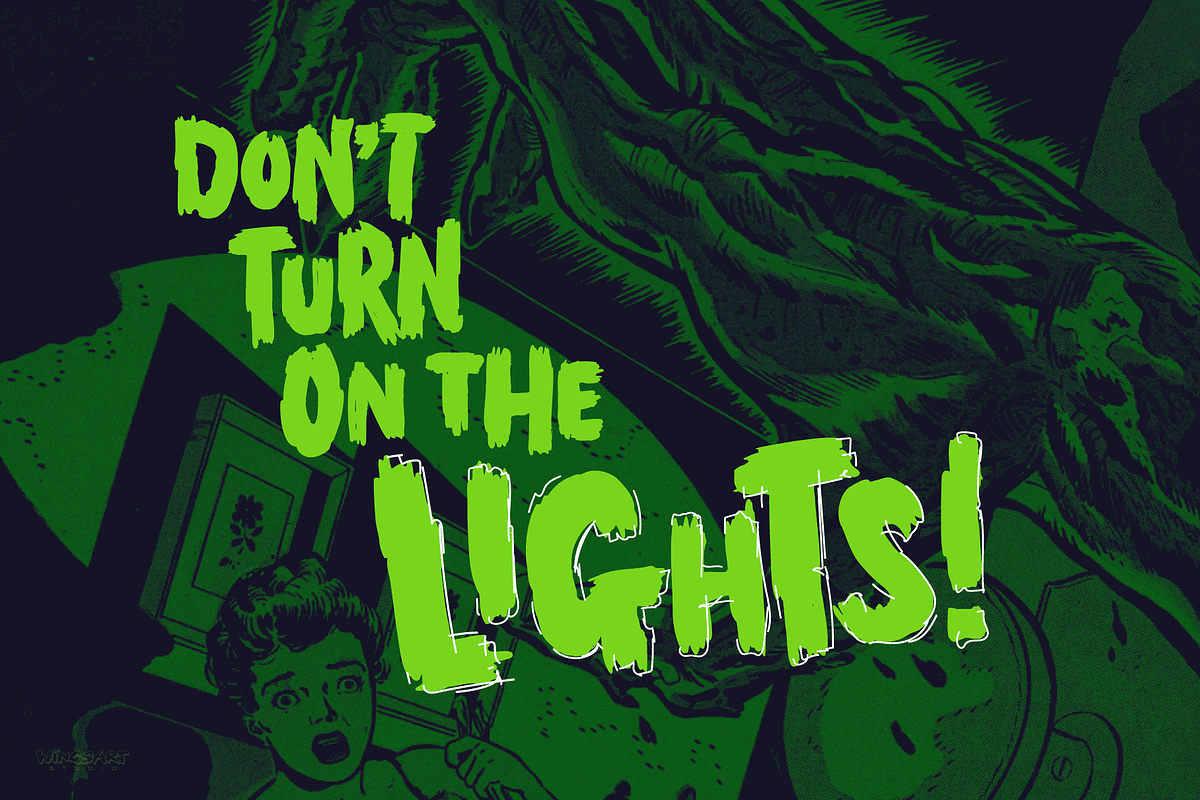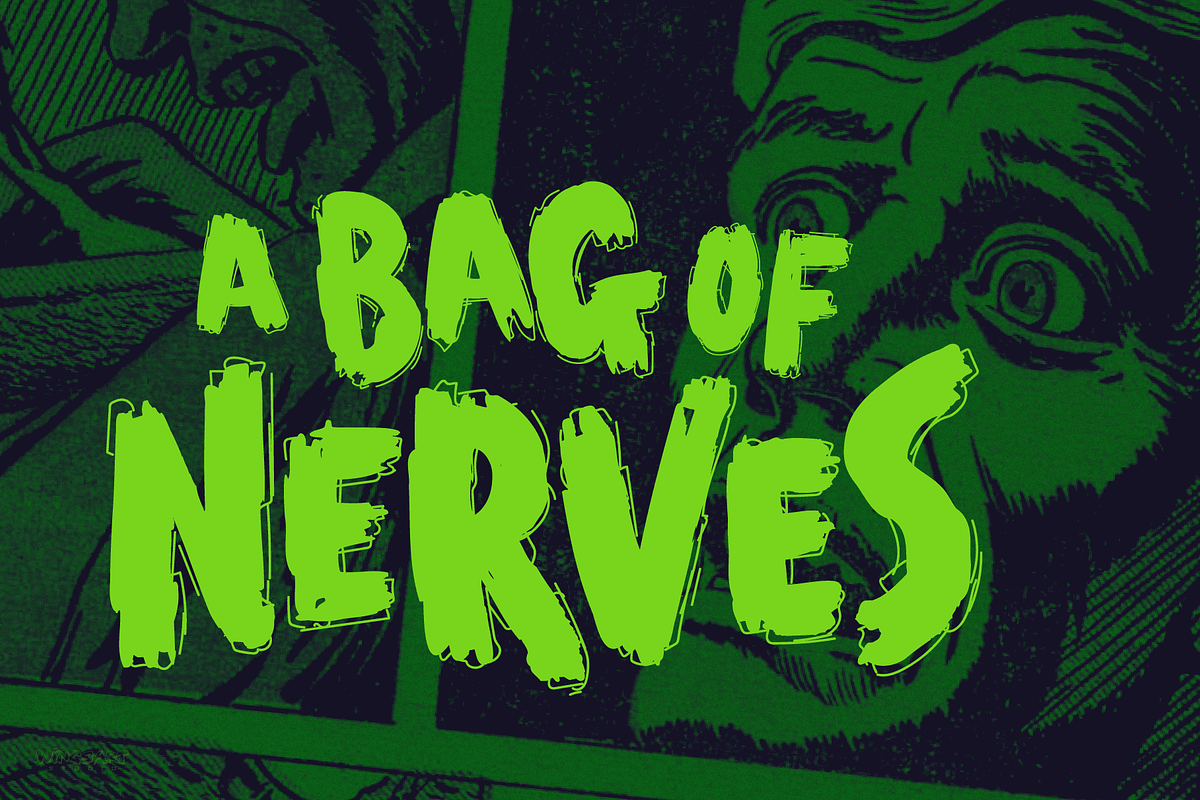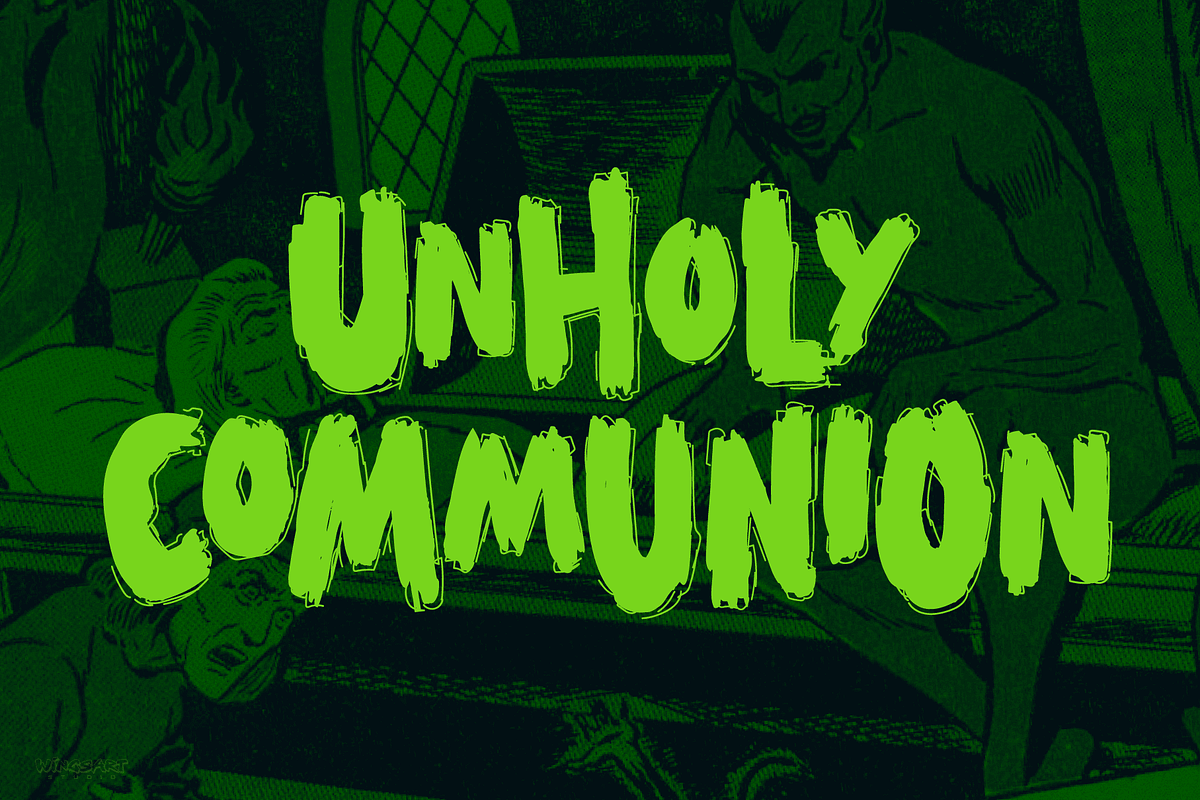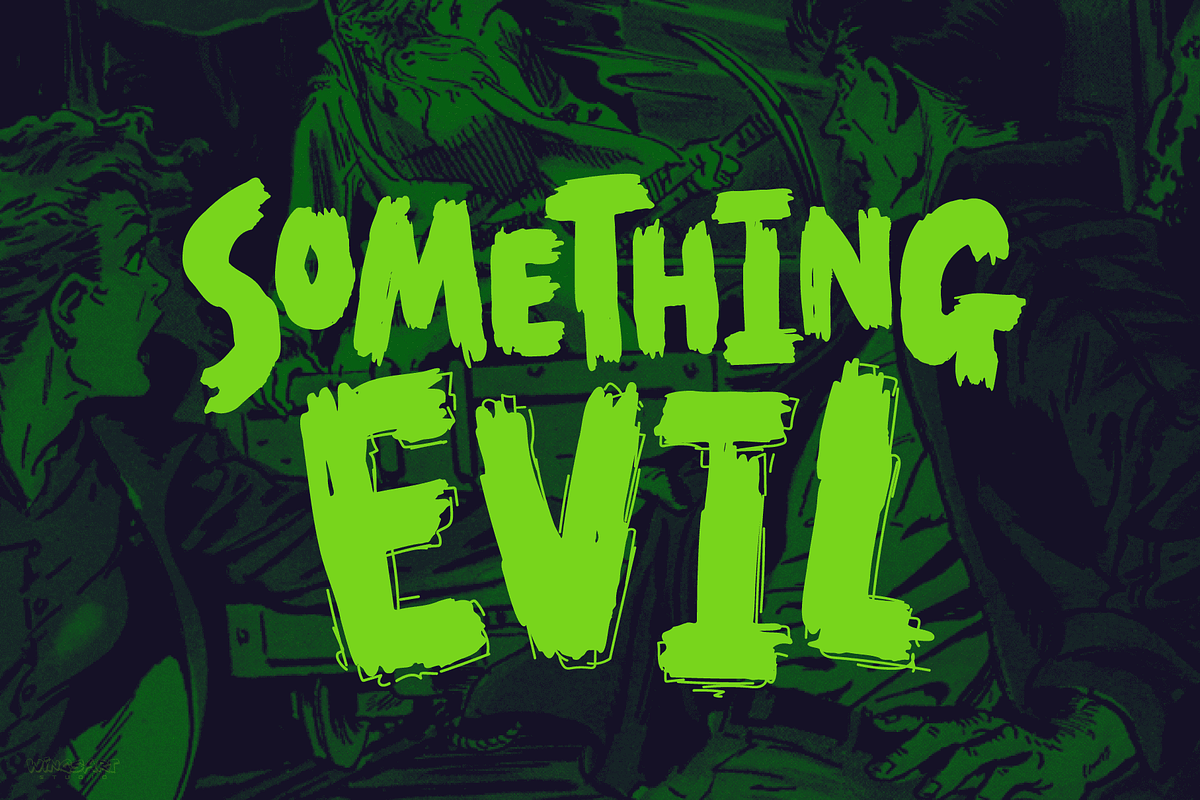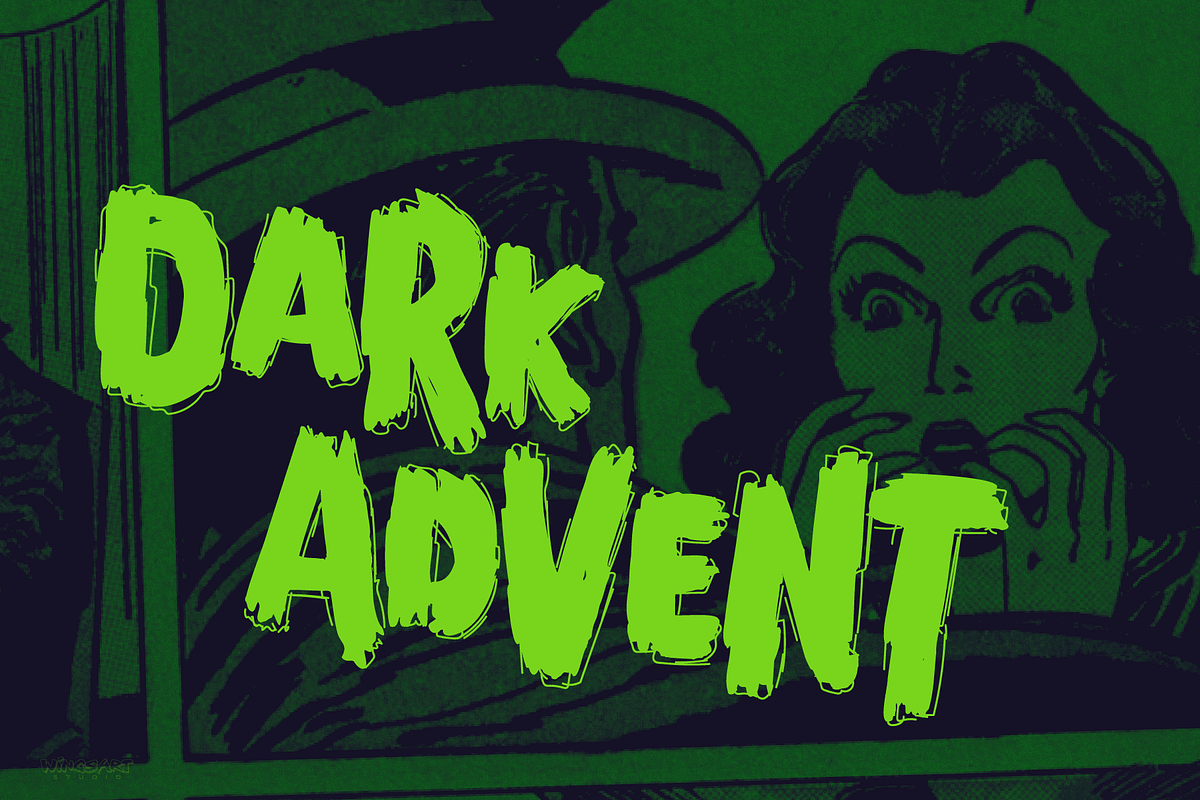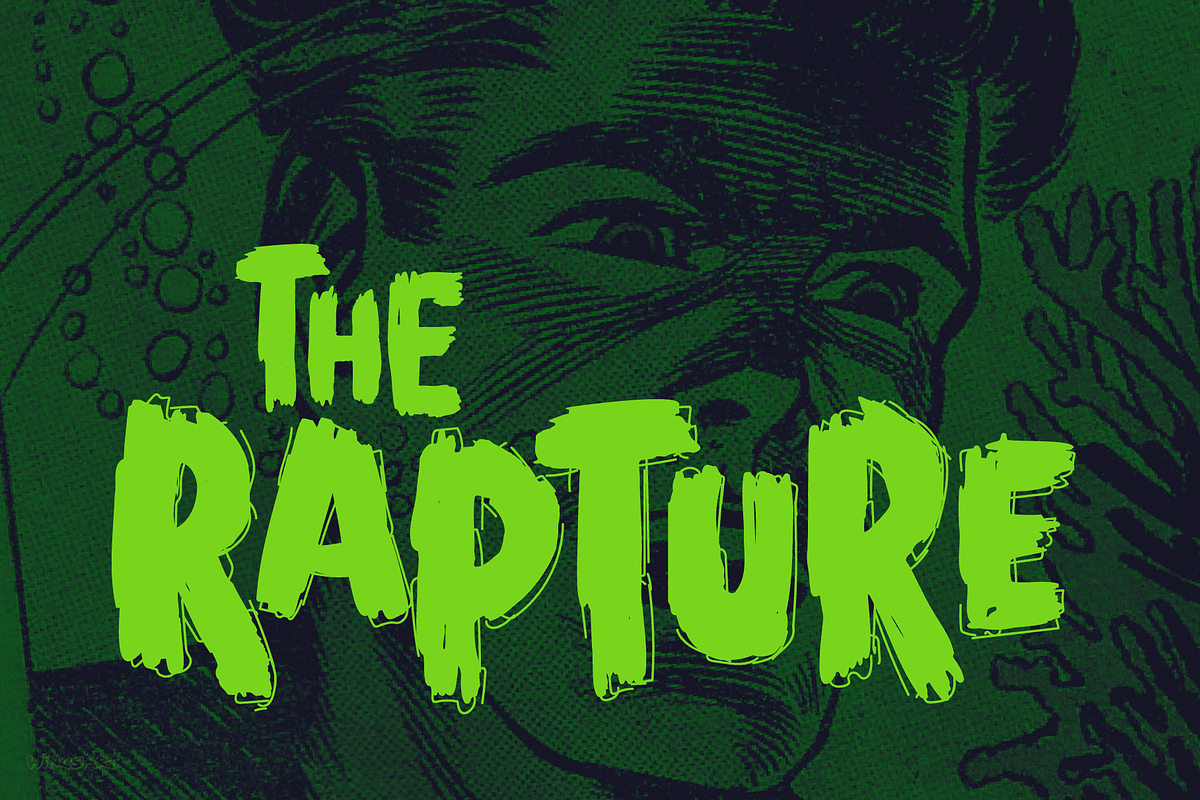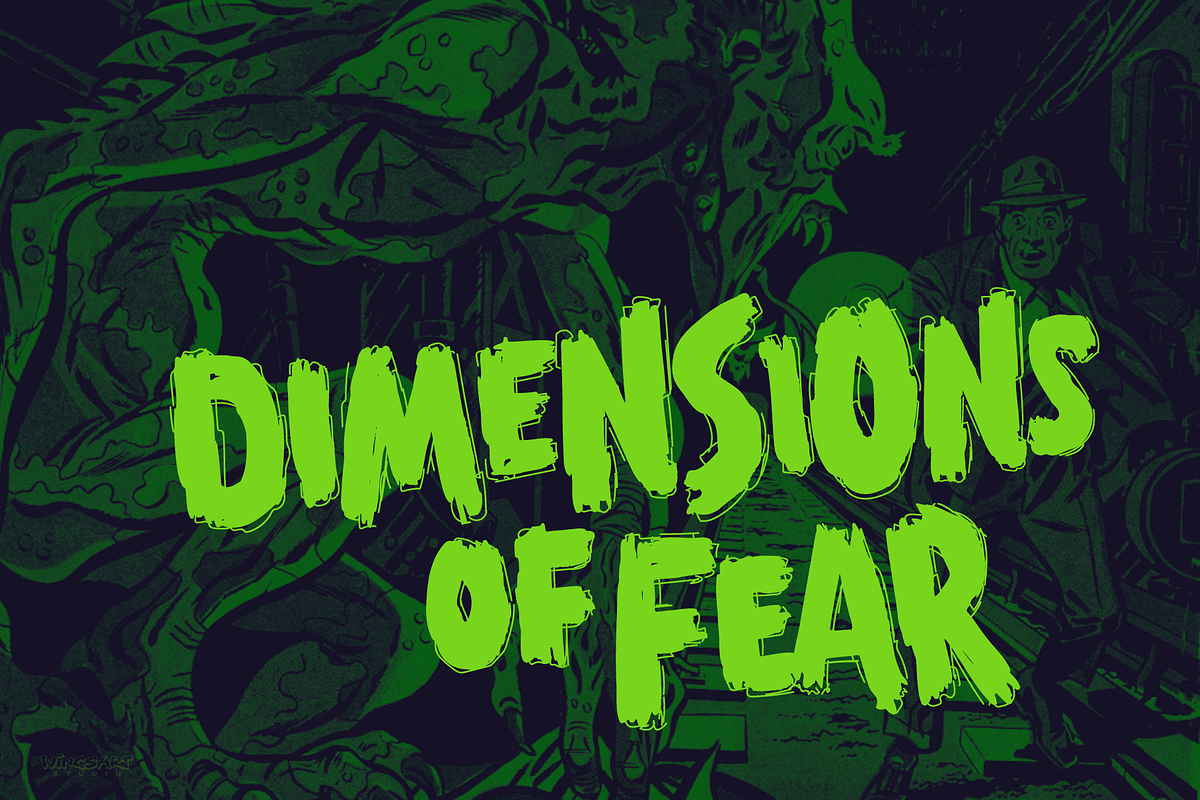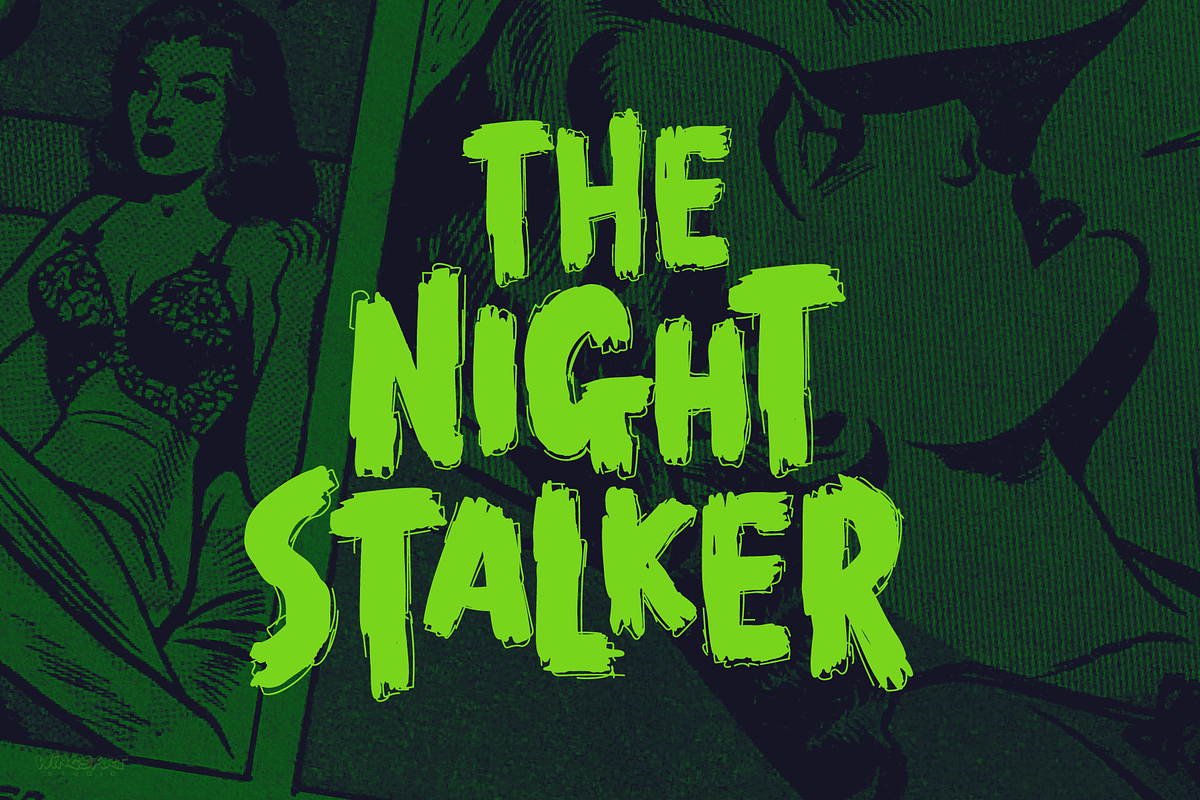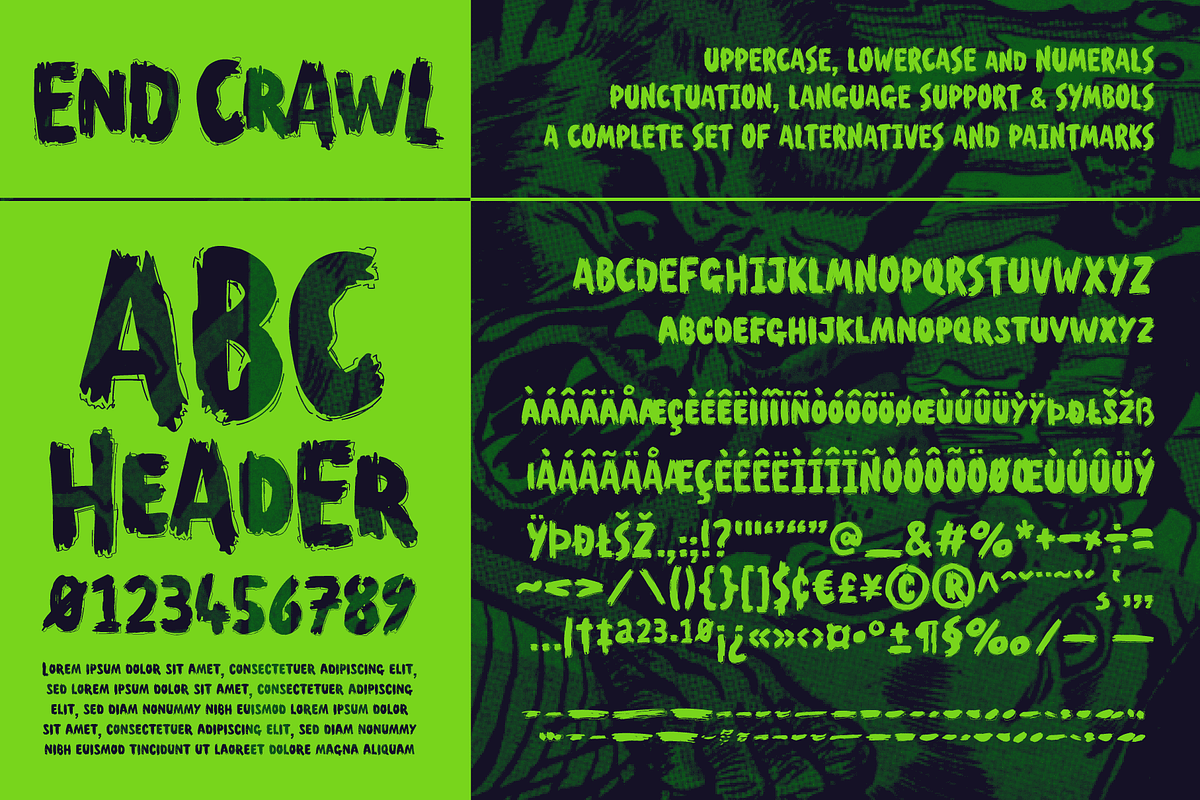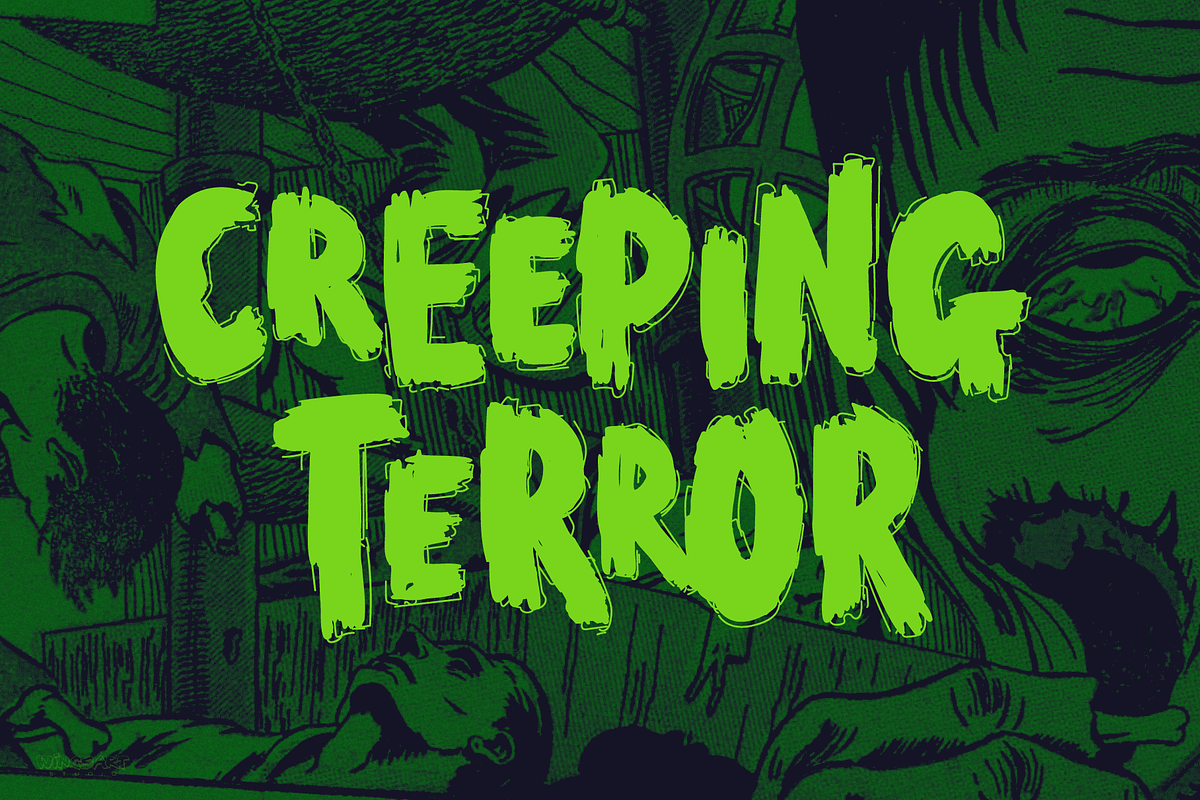
End Crawl - A Halloween Brush Font
Introducing a new creeping terror this Halloween, End Crawl is a hand-drawn brush font inspired by the gore-soaked horror movies and comic books of the 1970s and 80s.
This textured all-caps design evokes a nervous energy that will leave your readers frozen in suspense! With a bold painted look surrounded by an anxious outline, it offers the tools to leave your readers stomach in knots!
The End Crawl font family includes all-caps uppercase and lowercase characters, along with numerals, punctuation, symbols and language support. Also included are a complete set of alternative characters and additional paint marks, drips and splashes.
Wingsart Studio Design Tip! The uppercase and lowercase characters work great when mixed in an alternating fashion, with shapes that combine to create a dynamic, trembling look that's perfect for the Halloween season. Add the alternatives and paint marks into the mix and you'll have yourself a title or header design that looks truly custom-made. I've even included the base font and outlines separately, allowing to overlay your own colour combinations!